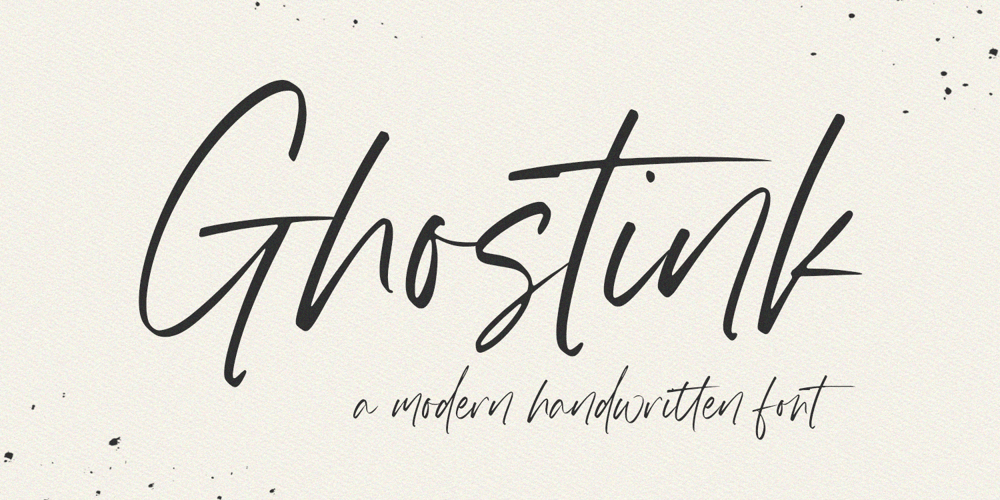
Ghostink Font Family was designed by Wara Sigit Tri Pamungkas and published by Timurtype. Ghostink contains 1 styles and family package options. Introducing by Timur typeProudly Present, Ghostink A Handwritten Script FontGhostink is perfect for product packaging, branding project, megazine, social media, wedding, or just used to express words above the background.Ghostink also multilingual support.Embelish your designs with our original fonts.Enjoy the font,Thank you!